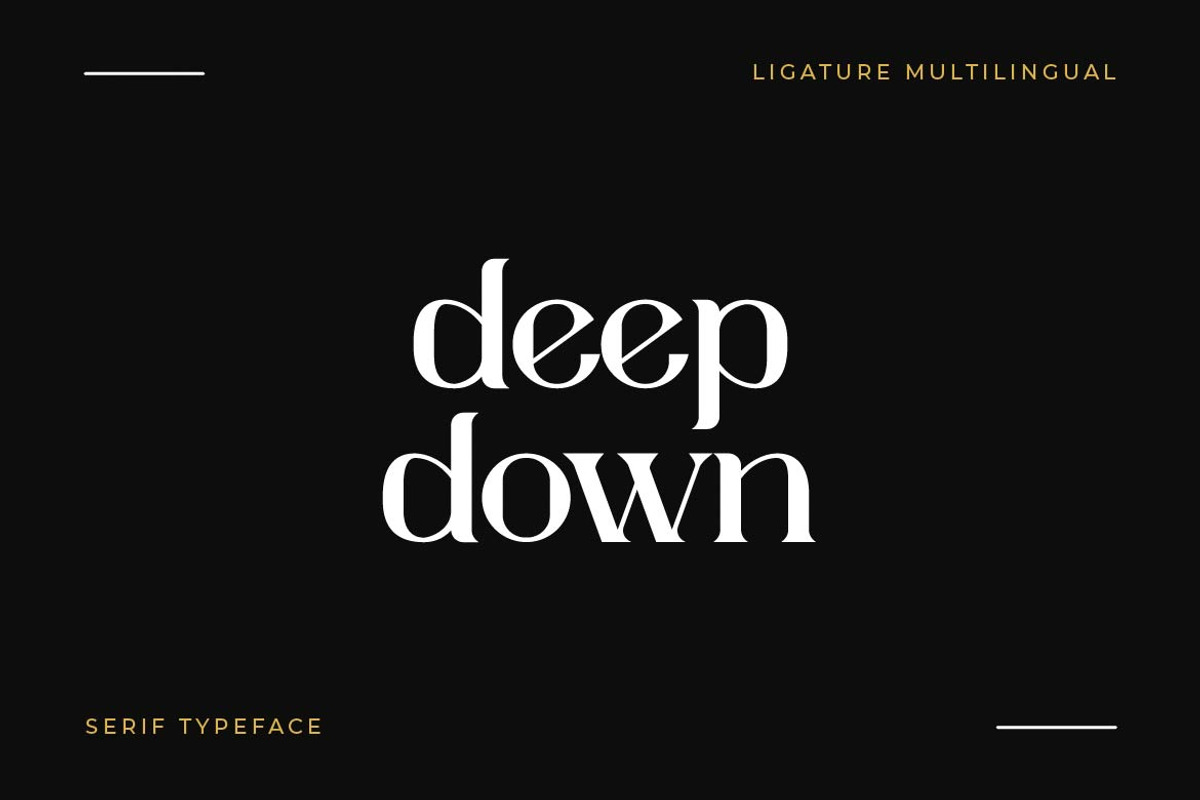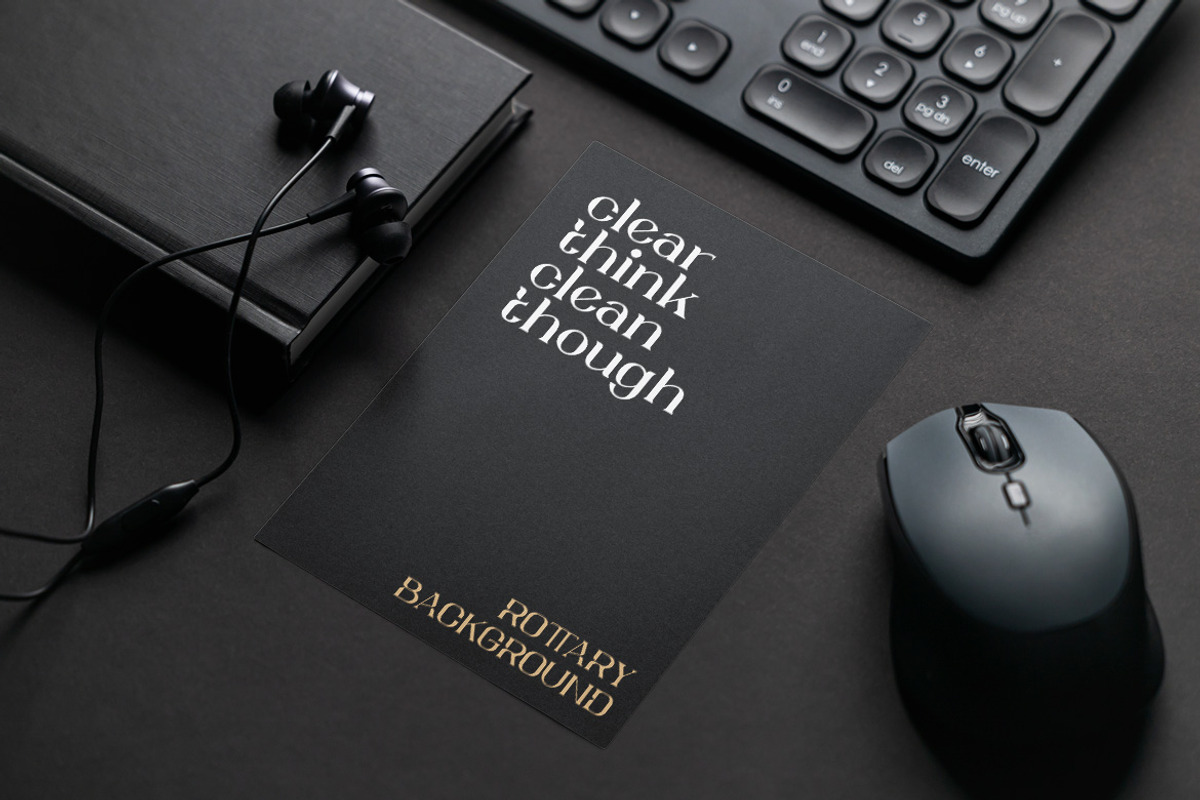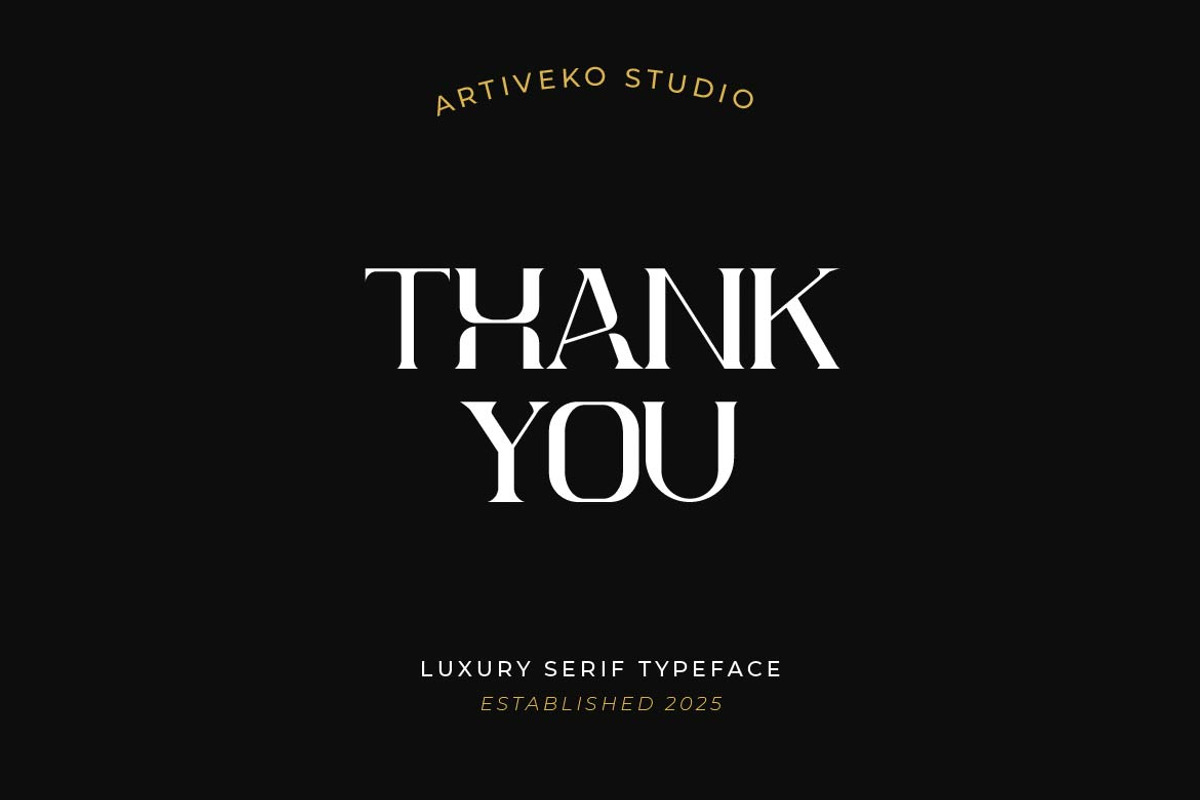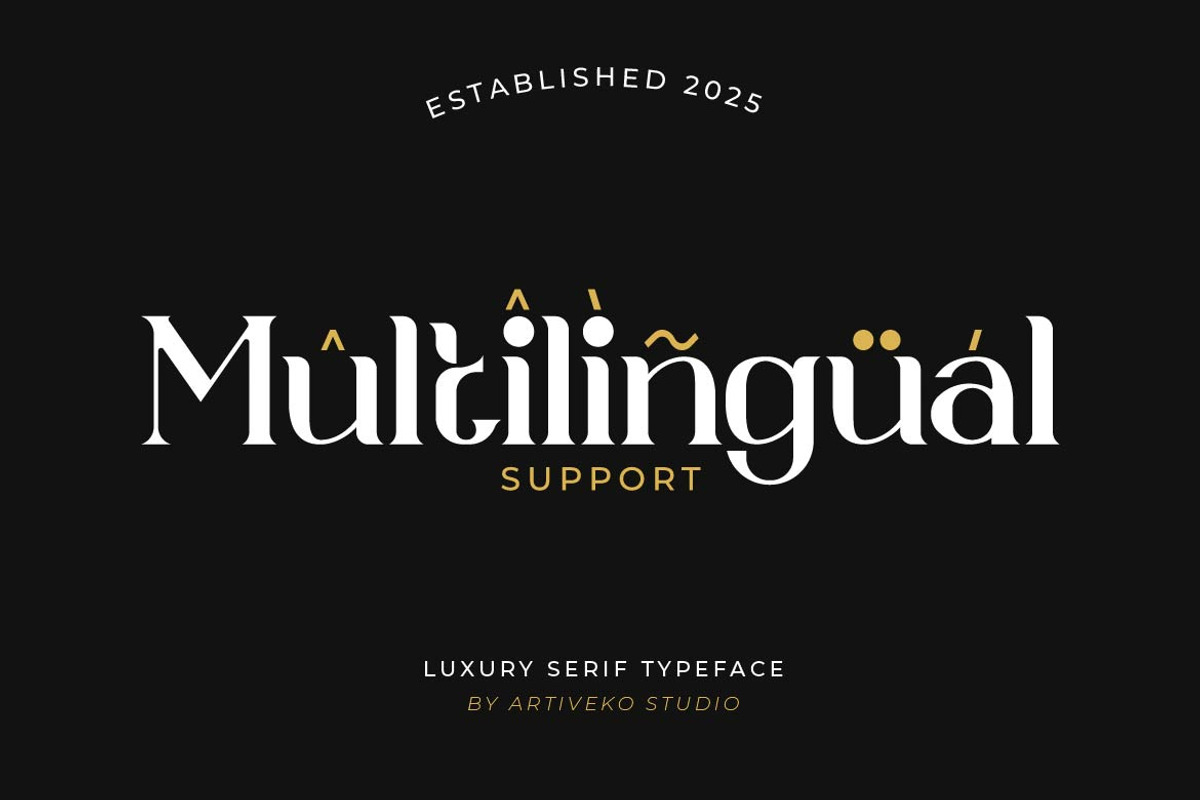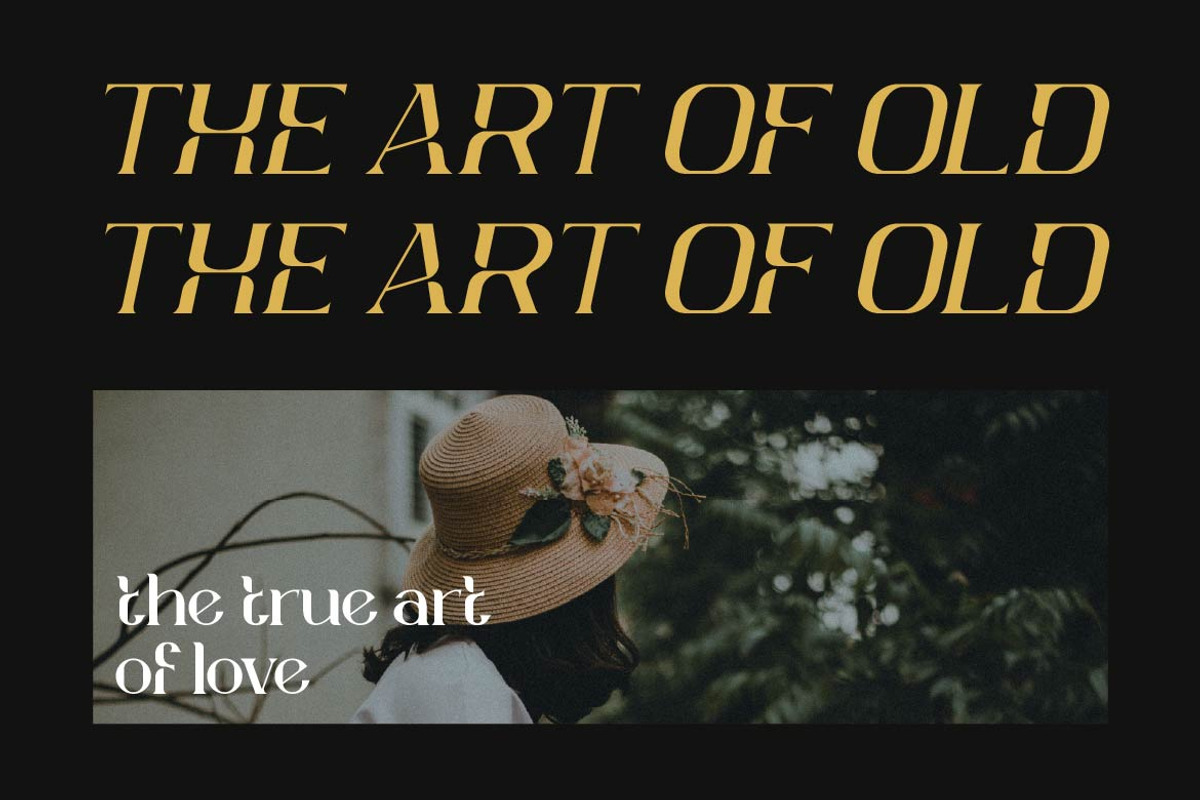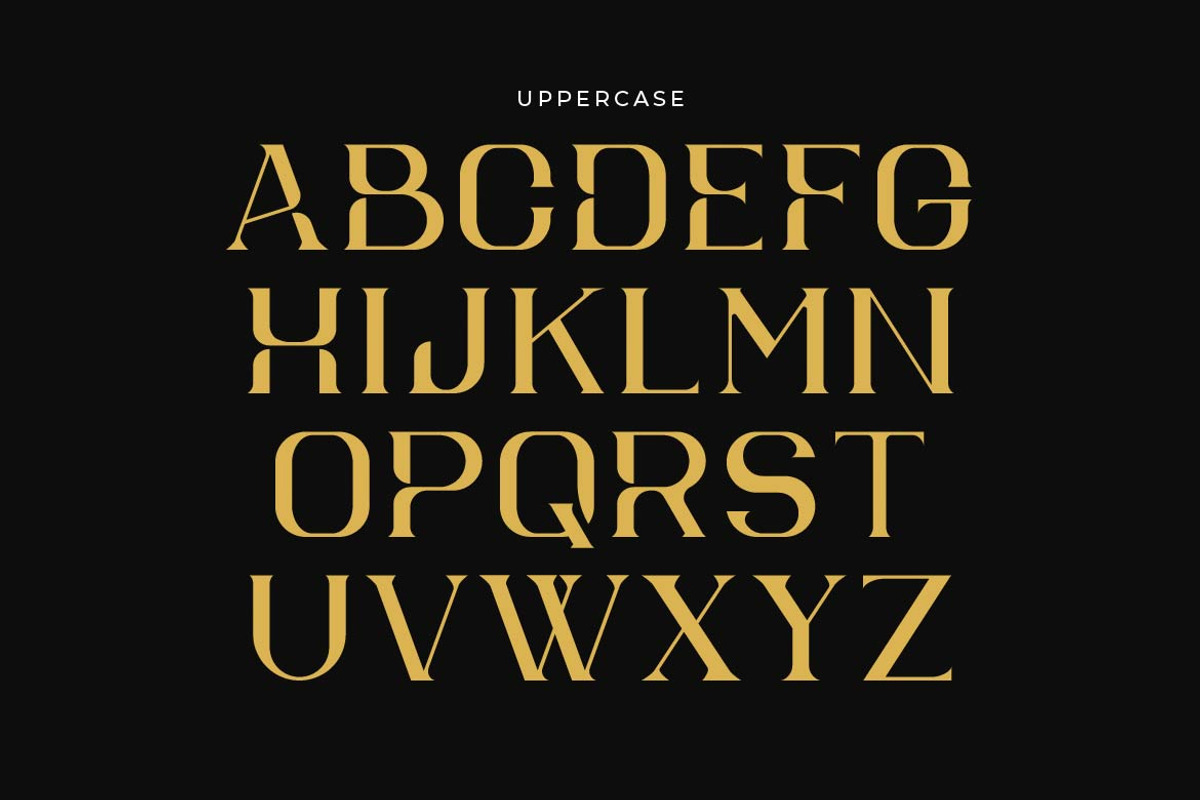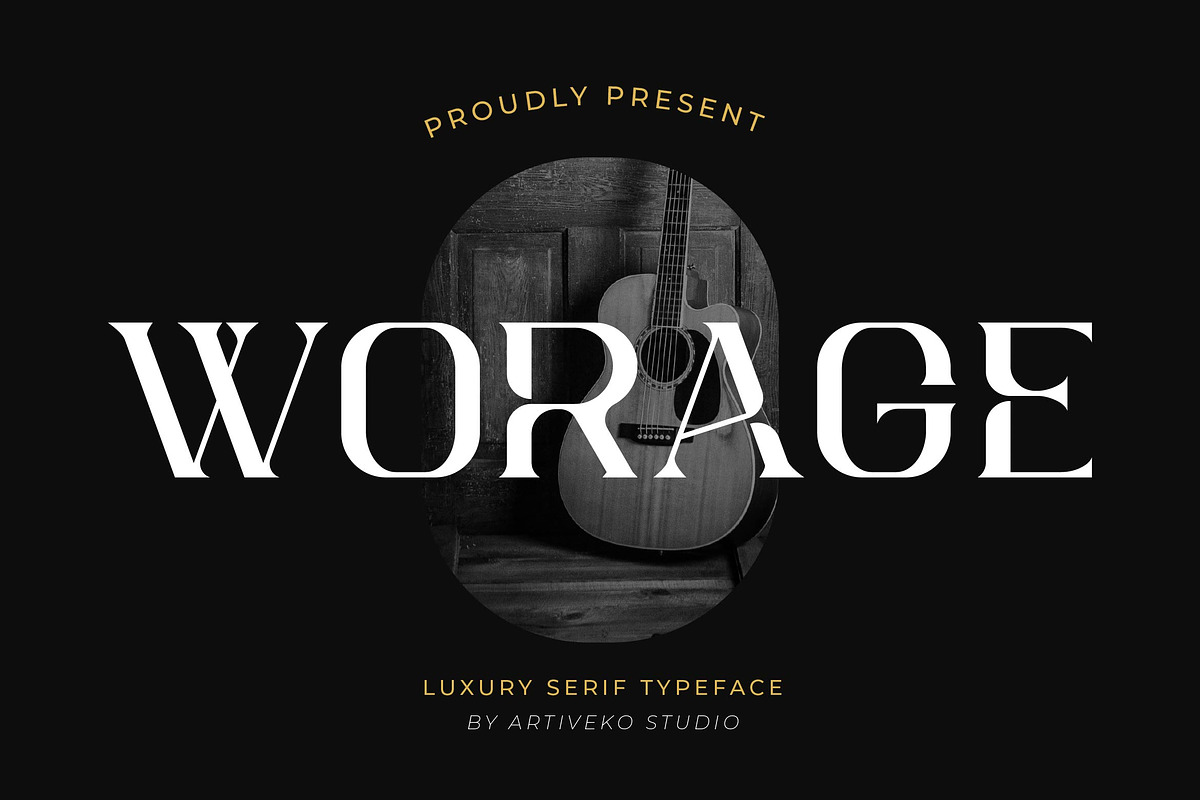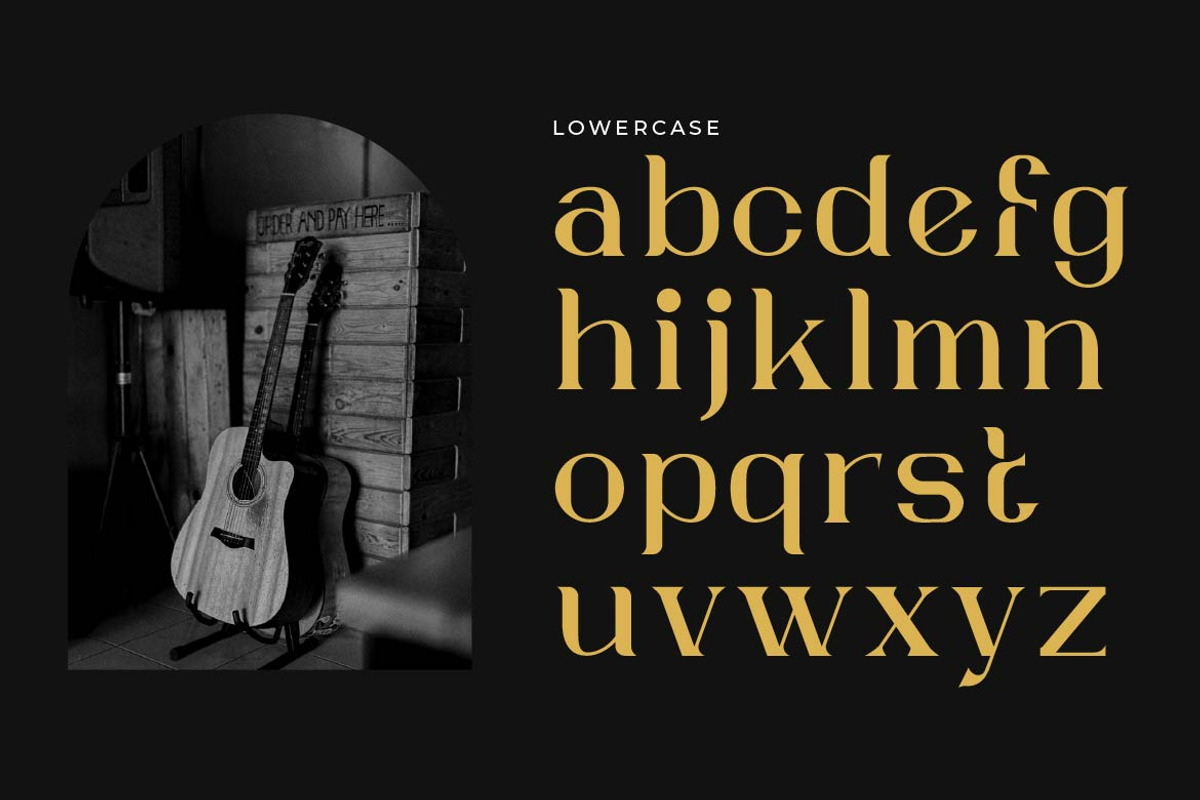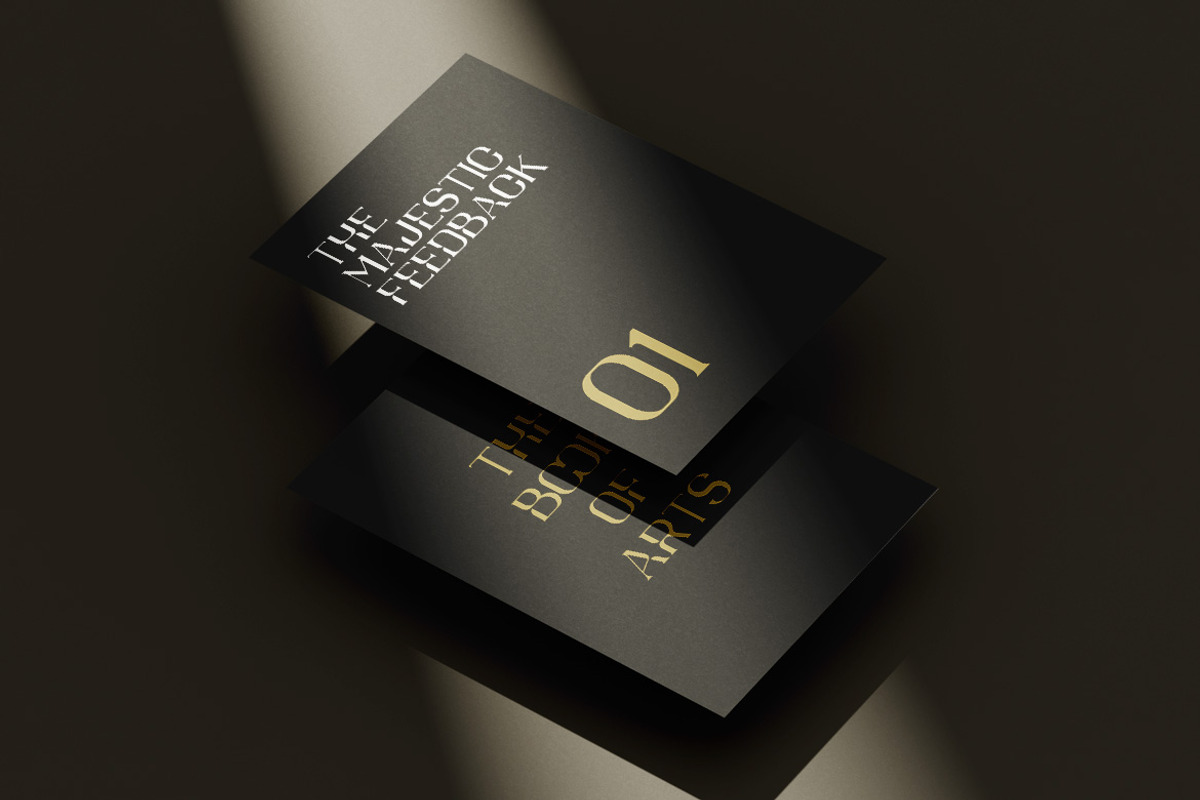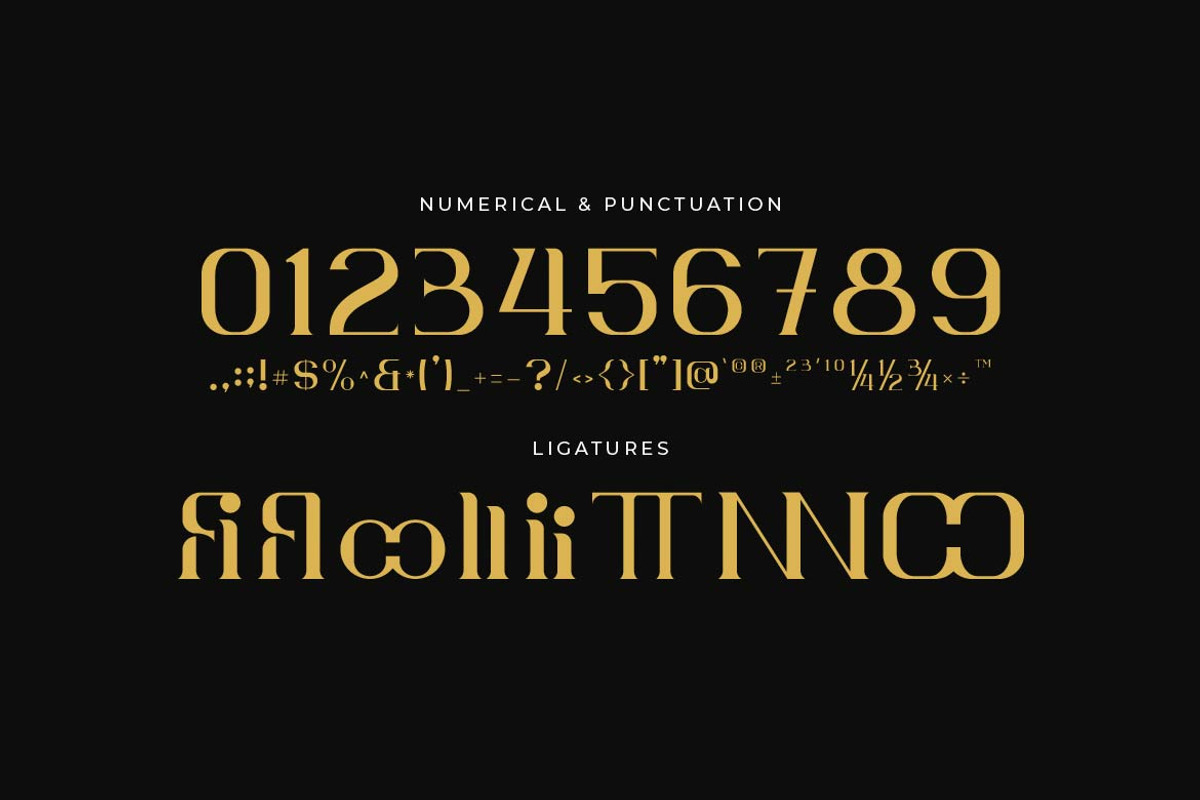
Worage Luxury Serif
Worage is a luxury serif font that exudes elegance, power, and sophistication. Crafted with precision and a deep appreciation for classical beauty, Worage blends traditional serif details with a modern edge. Its high-contrast strokes, elegant curves, and distinctive terminals create a refined aesthetic perfect for premium branding, editorial designs, fashion lookbooks, and upscale packaging.